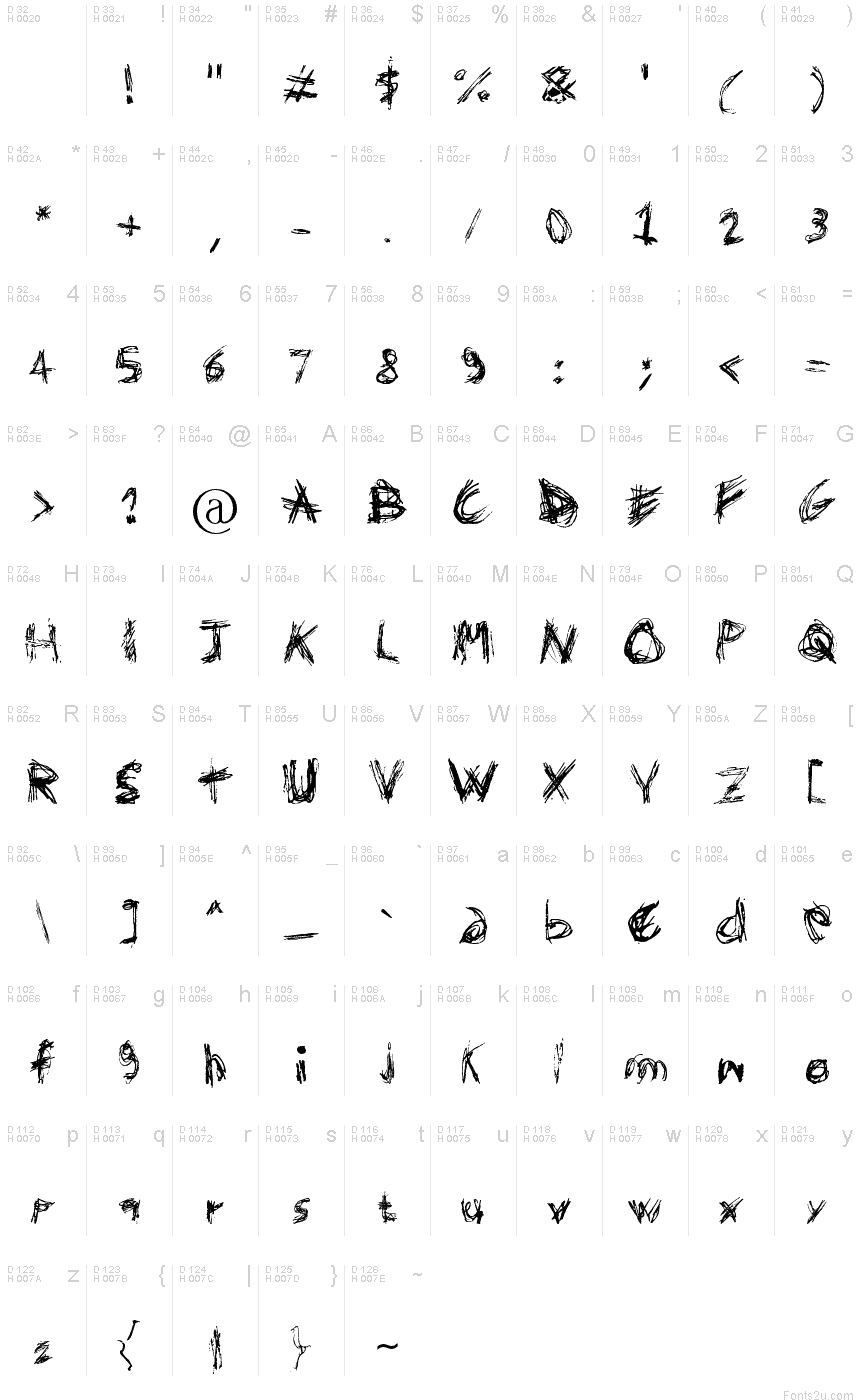
Domenico128 is a free graffiti font with frantic, scratched lettering and the raw force of a hurried wall tag. Its uneven strokes overlap, break apart, and double back across the letter shapes. Tall, narrow forms alternate with broader knots of ink, so the line feels restless and crowded.
Designers working in underground music, skate culture, or streetwear labels can use it for gig posters, apparel graphics, and album covers. It turns a title into part of the artwork. The slashed texture is especially convincing for urban event graphics and rebellious youth branding.